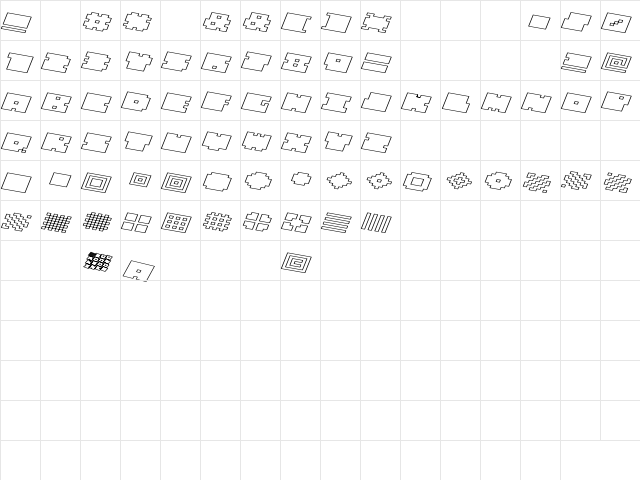
QUBE HOLLOW WIDE ITALIC
Design Context for QUBE HOLLOW WIDE Typeface
QUBE HOLLOW WIDE is a composed and adaptable typeface that performs quietly and consistently across a wide range of design contexts. The slanted form adds forward momentum and visual energy.